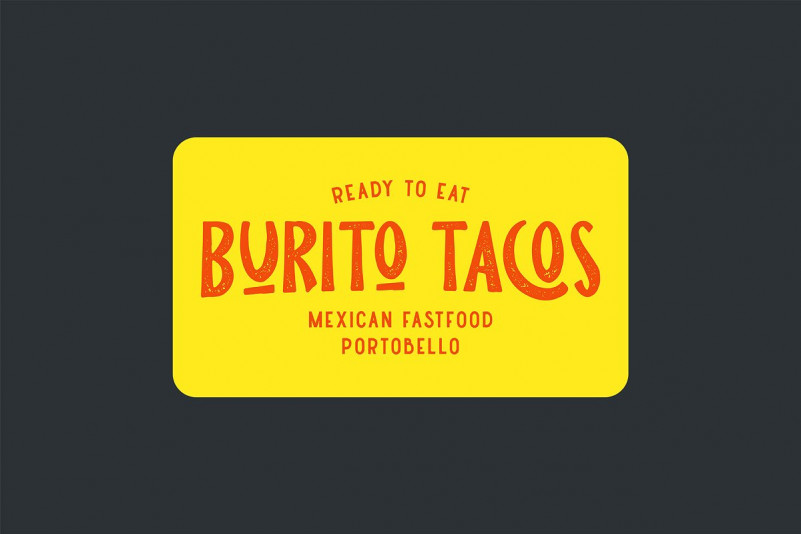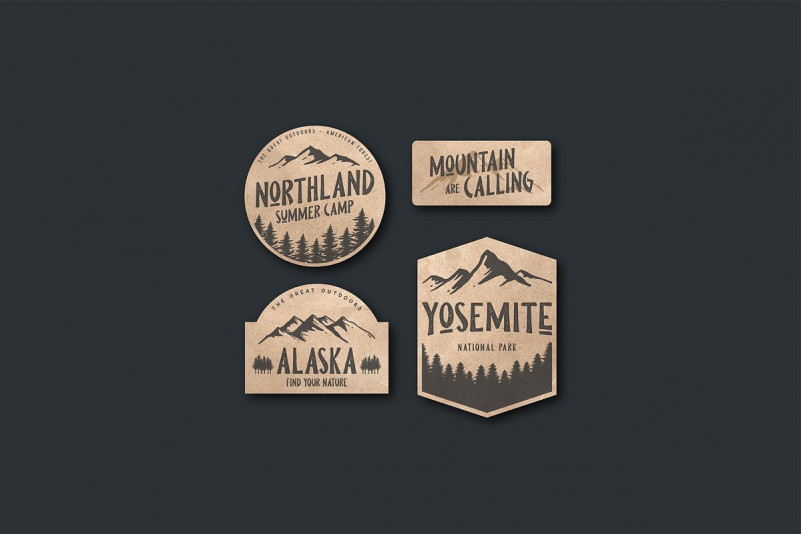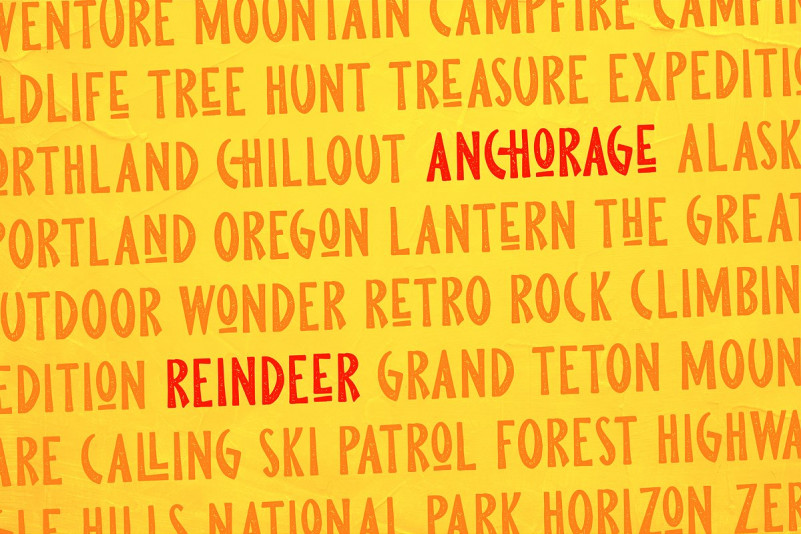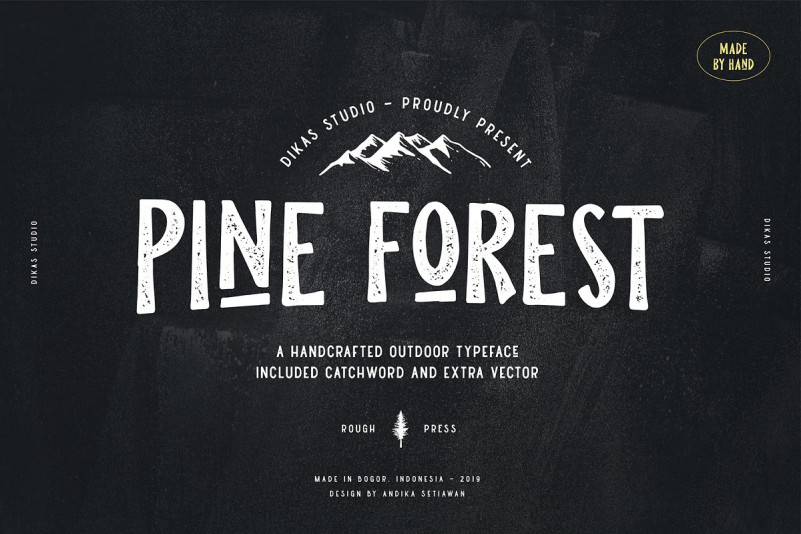
Pine Forest Font
This is a handcrafted outdoor typeface. It looks elegant, old and has a royal feel to it. This typeface is suitable for any vintage related projects. Introducing Pine Forest Outdoor Typeface. Pine Forest is a display sans serif typeface inspired from outdoor activity, they have a verry handrawn and playfull character. Pine Forest come with two fonts styles rough and press. In this package include catchword and extra vector that can help you to create design. Suitable and applicable to create typography design, branding, logos, product packaging, invitation, qoutes, t-shirt, label badge poster etc.